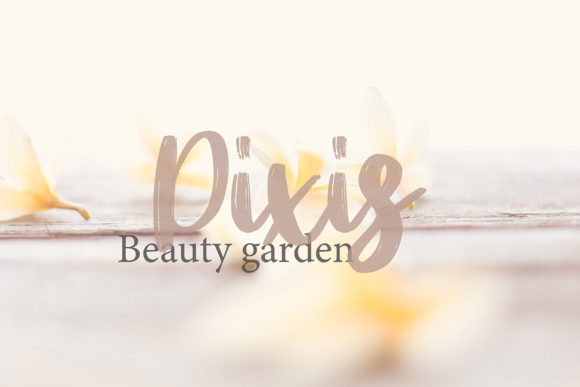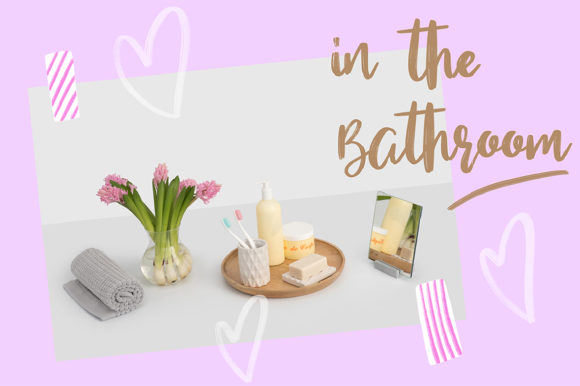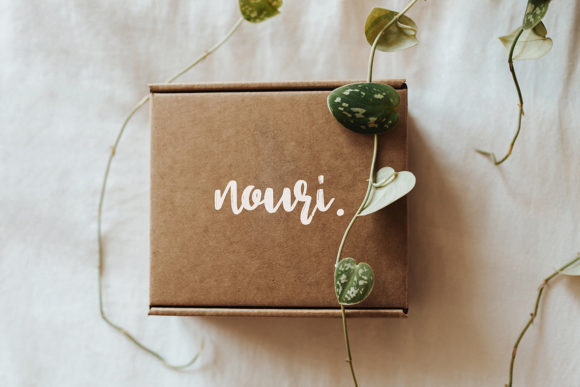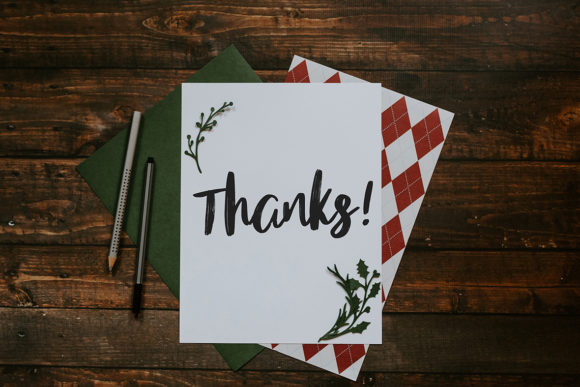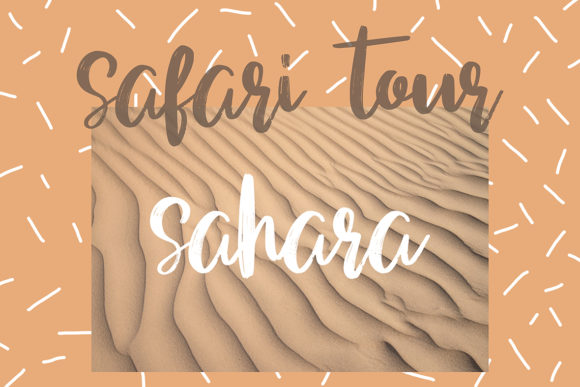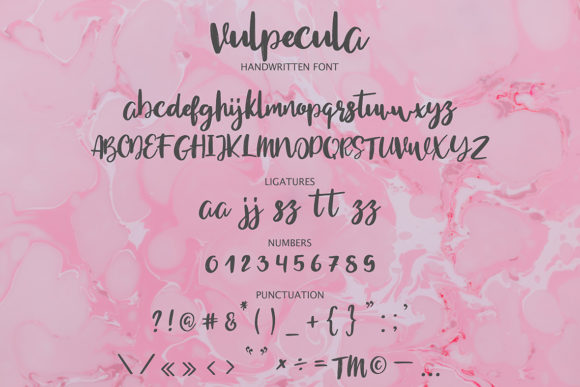
HomeScript FontsVulpecula Font Script Fonts Vulpecula Font FacebookXPinterestWhatsApp Vulpecula Font Poster 2 Vulpecula Font Poster 3 Vulpecula Font Poster 4 Vulpecula Font Poster 5 Vulpecula Font Poster 6 Vulpecula Font Poster 7 About Vulpecula Font Vulpecula is a sweet and cool handwritten font that will turn any design project into a true standout! DOWNLOAD ON CREATIVE FABRICAThis font is sold and delivered by Creative Fabrica. Font Canyon may earn a commission if you buy through this link. People also explored Aerof Font Sintadia Font Chiettha Font Bergelombang Font Paper Hearts Font Easter Cute Font Yildiz Geminies Font Worldzone Font 294 0 TagsVulpecula Font Previous articleTeodorra FontNext articleHandle Font LEAVE A REPLY Cancel reply Comment: Please enter your comment! Name:* Please enter your name here Email:* You have entered an incorrect email address! Please enter your email address here Website: Save my name, email, and website in this browser for the next time I comment. Personal Use Free Squealer Personal Use Free Read more about this font William Personal Use Free Read more about this font Rafika Personal Use Free Read more about this font Farmgarden Personal Use Free Read more about this font BLOG Transform Your Website: Elevate Your Typography with 7 Best Web Font Generators Are you ready to transform your website's typography from ordinary to extraordinary? Great! Today, we're diving into the world of web font generators, which... Exploring Font Trends Fonts That Capture the Spirit of New York City Using Fonts in Digital Marketing: Tips to Strengthen Your Brand Identity